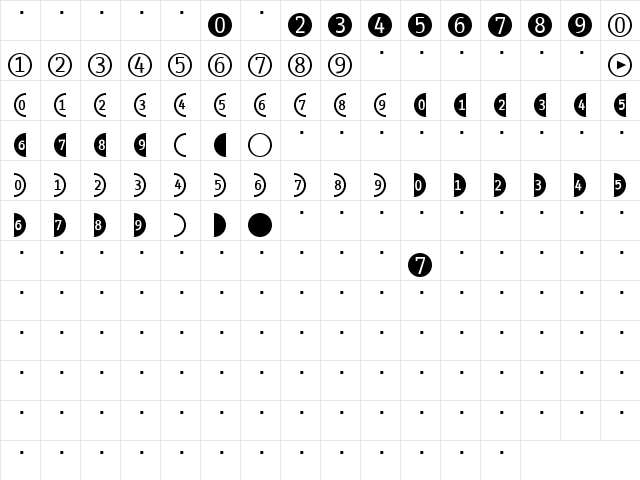
InfoOffice Regular
Design Context for InfoOffice Typeface
InfoOffice offers clean, dependable letterforms without strong stylistic allegiance, making it a practical choice for designers who need flexibility.
Pro Tip: Pair InfoOffice with a font of contrasting weight or personality to build a more expressive typographic hierarchy.